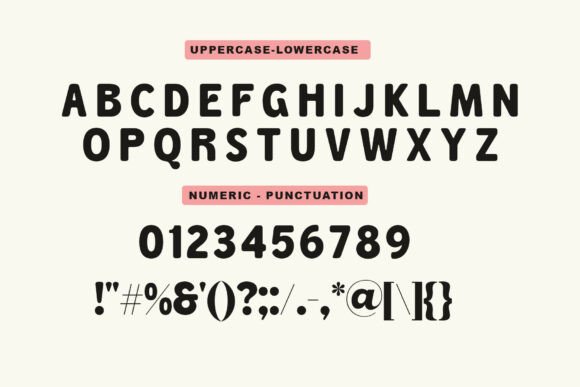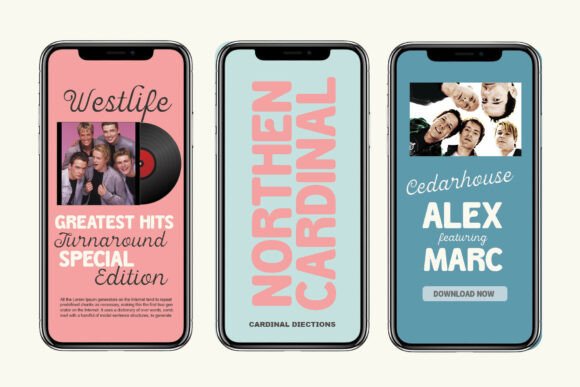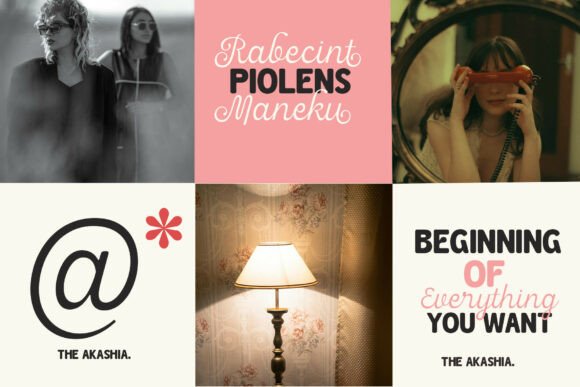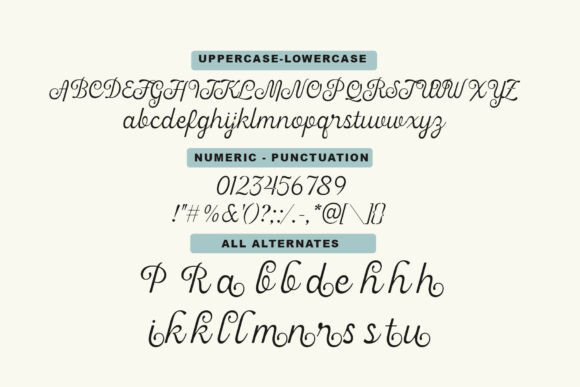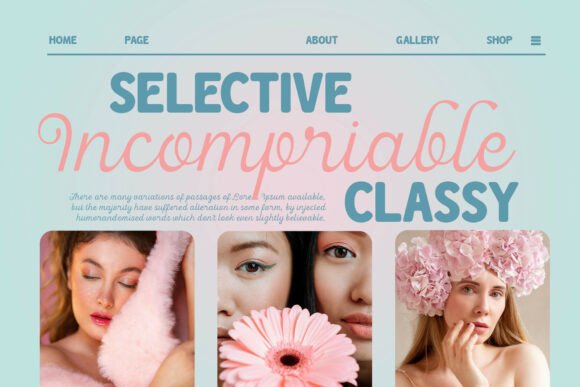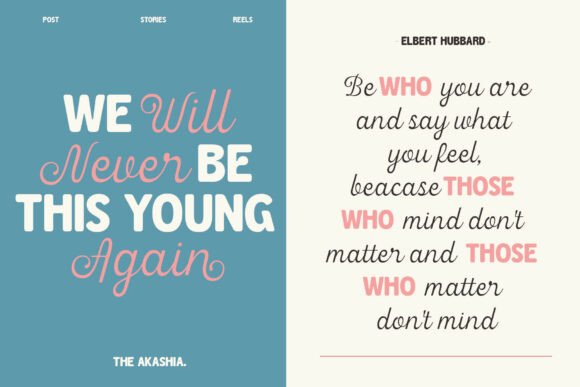
Introducing Akashia Font: The Perfect Duo for Modern Designs
Are you tired of using the same old fonts for your designs? Look no further than the Akashia Font, a charming duo that combines a bold sans serif with a flowing script. This font duo is perfectly balanced between playful and elegant, making it the perfect addition to your design toolkit.
The Akashia Queen: A Font Duo Like No Other
The Akashia Queen is a unique font duo that brings versatility to your projects. Whether you’re working on feminine branding, social media graphics, invitations, or packaging, this font duo has got you covered. The contrast between the solid sans and delicate script makes it ideal for modern designs that need both strength and grace.
Key Features of Akashia Font
- Bold Sans Serif: The sans serif font in the Akashia duo is bold and sturdy, making it perfect for headlines and titles. Its clean lines and geometric shape give it a modern and sleek look.
- Flowing Script: The script font in the Akashia duo is elegant and flowing, making it perfect for adding a touch of sophistication to your designs. Its delicate lines and curves give it a feminine and whimsical feel.
- Perfectly Balanced: The Akashia duo is perfectly balanced between playful and elegant, making it suitable for a wide range of design projects.
- Versatile: The Akashia duo can be used for a variety of design projects, including branding, social media graphics, invitations, packaging, and more.
Uses of Akashia Font
The Akashia Font is a versatile font duo that can be used for a wide range of design projects. Here are some ideas to get you started:
- Feminine Branding: The Akashia duo is perfect for feminine branding projects, such as logos, business cards, and letterheads.
- Social Media Graphics: The Akashia duo can be used to create eye-catching social media graphics, such as Facebook posts, Instagram stories, and Twitter headers.
- Invitations: The Akashia duo is perfect for creating beautiful and elegant invitations for weddings, parties, and other special occasions.
- Packaging: The Akashia duo can be used for packaging design, such as labels, tags, and boxes.
Why Choose Akashia Font?
So why choose the Akashia Font for your design projects? Here are just a few reasons:
- Unique and Creative: The Akashia duo is a unique and creative font duo that will set your designs apart from the rest.
- Easy to Read: The Akashia duo is easy to read, even at small sizes, making it perfect for body text and captions.
- Customizable: The Akashia duo can be customized to fit your design needs, including adjusting the font size, color, and style.
In conclusion, the Akashia Font is a charming duo that combines a bold sans serif with a flowing script. Perfectly balanced between playful and elegant, this font duo brings versatility to your projects. Whether you’re a designer or crafter, the Akashia Font is a great addition to your toolkit. So why wait? Download the Akashia Font today and start creating beautiful and modern designs!